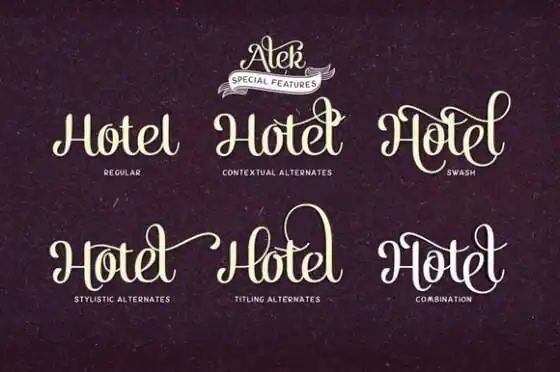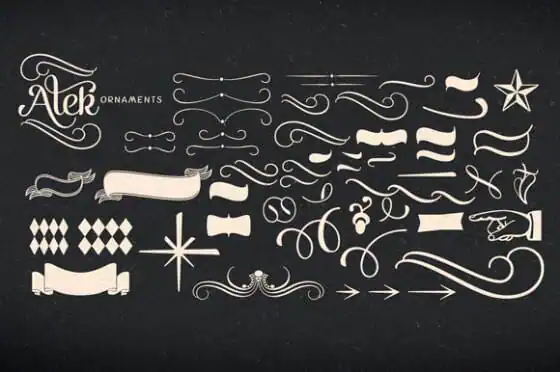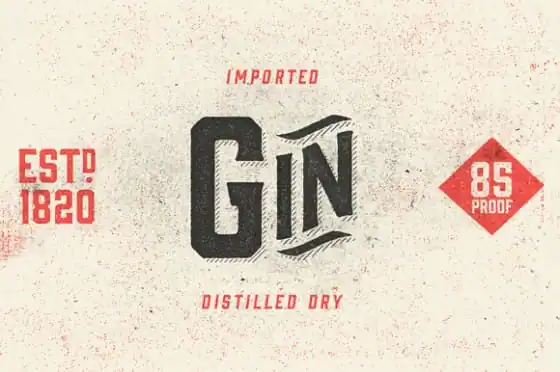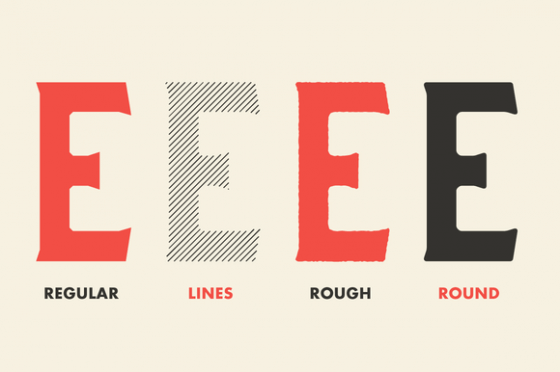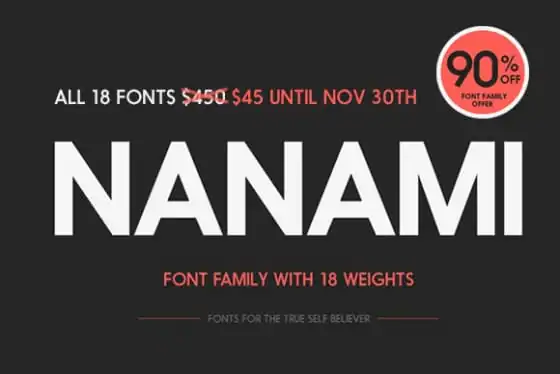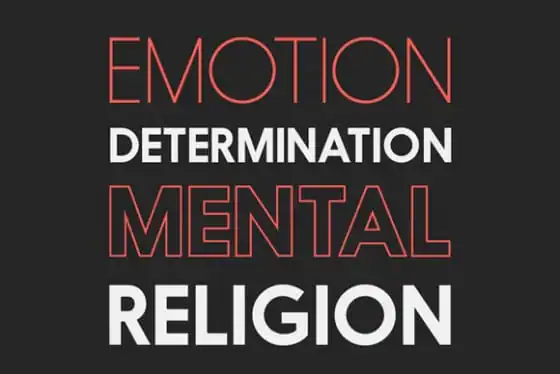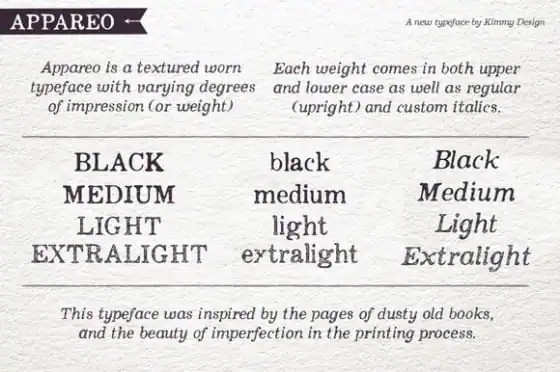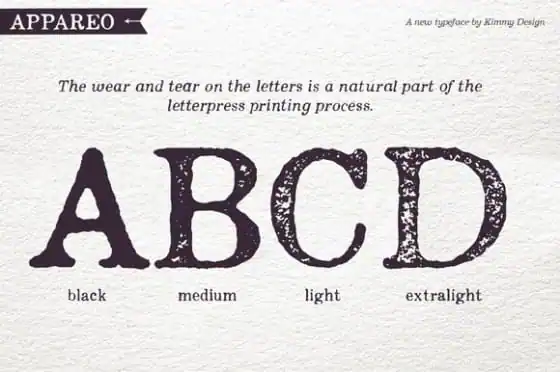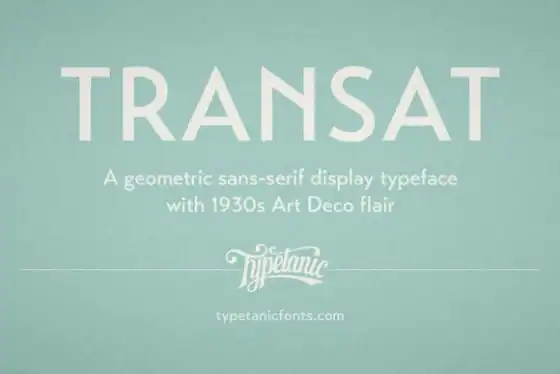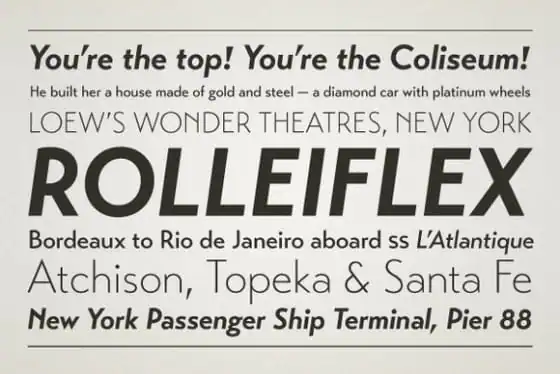
It’s impossible to overestimate the importance of typefaces with regards to how a website, logo or company is perceived. Fonts are essential pieces of information that communicate to readers the style, philosophy and personality of a business. Anyone in the design world is quick to point out the immediate irritation that Comic Sans creates, or how the clean and crisp appearance of Helvetica makes it popular with newspapers and magazines. There are millions of typefaces available, and choosing one that suits your application is paramount. Here are five new options that may spark inspiration in your web development process.
Alek
Fancy, curvaceous and playful, the Alek font has a lot going for it. Many decorative fonts are overly ornamental and difficult to read, but Alek manages to be both fancy and practical. The elegant design complements stylistic websites, but it should only be used to enhance titles, headers, sub-headers or special features, as opposed to making up a bulk portion of text.
Gin
With an antique appearance that’s bold and aggressive, the Gin typeface offers a lot of personality in a clean design. The letters are written in capitals alone, making a striking statement that befits logos and home pages, and it can appeal to lovers of flat design, due to the vintage look. Gin also begs for equally fearless color choices. Think black and white, red and yellow, and navy and gold.
Nanami
Modern, clean and readable is the look most websites want these days. Fortunately, the appealing geometric curves of Nanami are the perfect option when you need a font that works as well for large sections of text as it does headers or logos. Though it’s simple, the Nanami font is not bereft of personality. Plus, the readability is unmatched by anything more decorative.
Appareo
Looking for a stylized, aged typeface that stirs up images of comic books, antique signs and zombie movies? Appareo has a gritty, distressed appearance that is ideal for any of these applications, and it helpfully comes with graphic elements that make this design trend all the more functional for a website, application or product.
Transat
One more modern option that’s perfect for all those typeface posters with inspirational messages: Transat. It’s a little bit old-fashioned and a little bit modern, giving readers a confident and trustworthy impression regardless of the content. Transat looks fantastic on responsive web pages, so whether your readers are using a laptop, iPad or smartphone, they’re all equally engaged.
The font is the first introduction to your style that readers and clients see. No matter how great the content or products, they will first be judged by the clarity, personality and interest your typeface creates. Choose wisely!